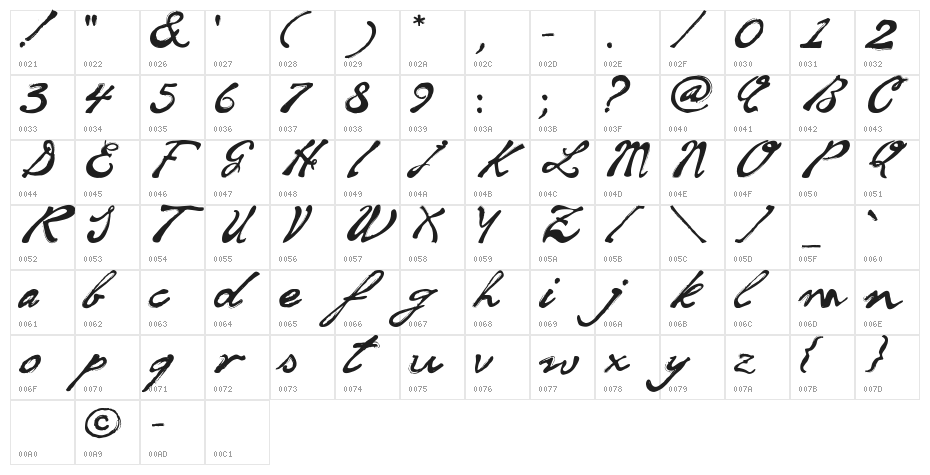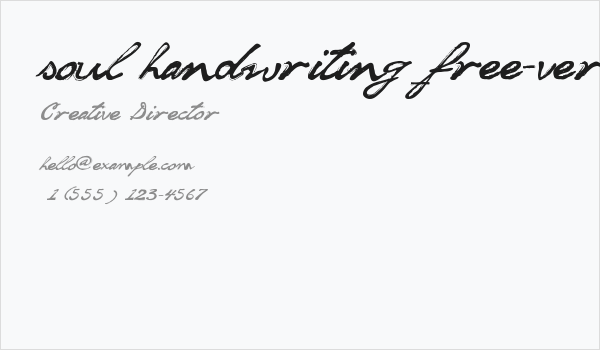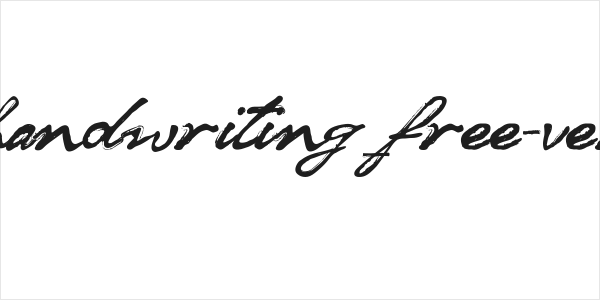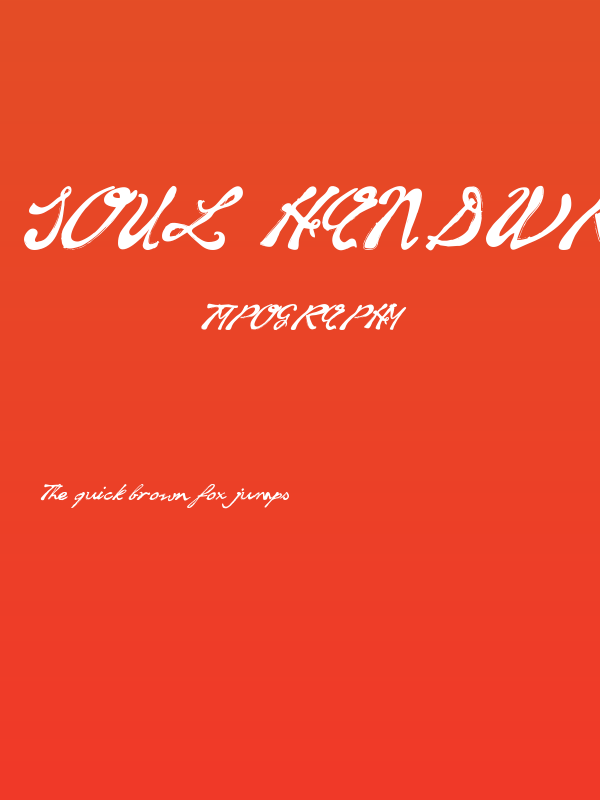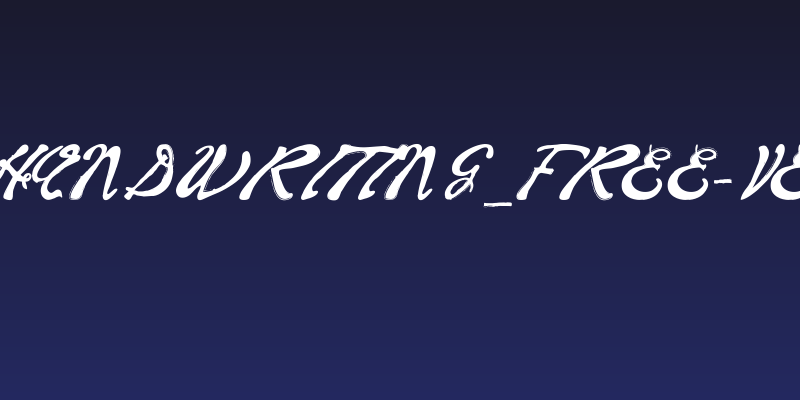
soul handwriting_free-version Font
soul handwriting_free-version Description
This font exudes a lively and expressive handwritten style, characterized by its fluid and dynamic strokes. The letters are connected in a cursive manner, giving it a natural and personal touch. The uppercase letters maintain a consistent height, while the lowercase letters exhibit a playful variation in size and slant. The numerals and special characters are crafted with the same energetic flair, ensuring a cohesive look throughout. The overall appearance is both artistic and approachable, making it suitable for projects that require a personal or creative touch.
| Overall Style | Artistic |
| Use Case | Logos, Invitations, Posters |
| Proposed Projects | Ideal for personal invitations, creative branding, artistic posters, and expressive social media graphics. |